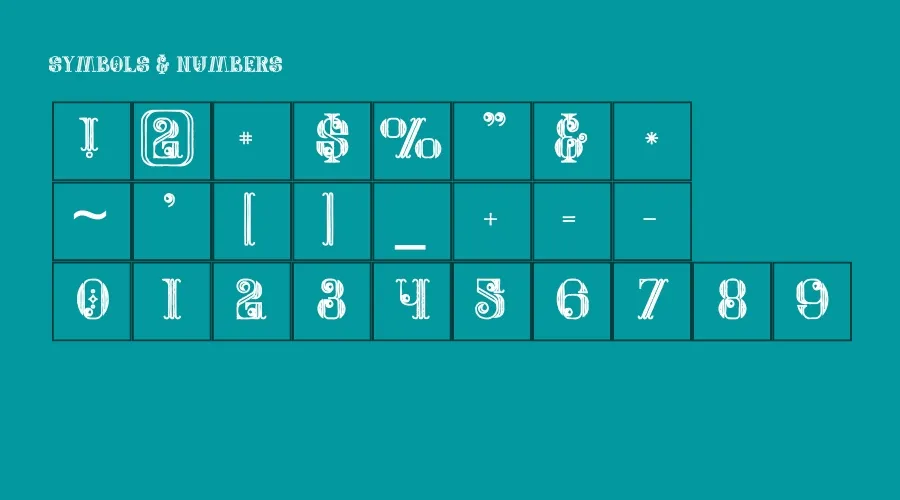
Jewel Font
About Jewel Font
Peter Olexa designed Jewel Font which is a fancy text style. Many people are downloading this free version for their projects because it is great for techno and square designs. Many fonts can be paired with this font, in this section, we will discuss the numerous uses of this font.
This astounding typeface can be used to create spectacular cards, logos, and invoices with a decorative touch. The tool is useful for creating magazine covers, banners, and social media posts.
There is no doubt that this font has flexible characters that will give you flawless results. Many alternatives can be paired with this font there is no doubt that this font is very popular among designers.
And people who use it for their purposes due to its soft and unique look. In HTML and CSS, this font is specified as a design element.
It’s best suited to clothing, t-shirt, blouse, and pants designs. As a designer, you can use this typeface to design newspaper and magazine covers, invoices, and invoices for book covers. It can be used for designing web content and web pages.
This tool is useful for a variety of official design projects, such as resume template designs, thumbnail designs, and theme designs. In addition to logo designs and wall paintings, this typeface is ideal for homeware designs, names, and social media titles.
Name Jewel Font
Designer Peter Olexa
Style Retro
• Jewel Regular
Pairing it with Bulka Font. Both fonts have very similar character styles that can give your designs more creative vibes.
What type of Jewel font?
This fun font relates to the category of fancy fonts. Designed by Peter Olexa.